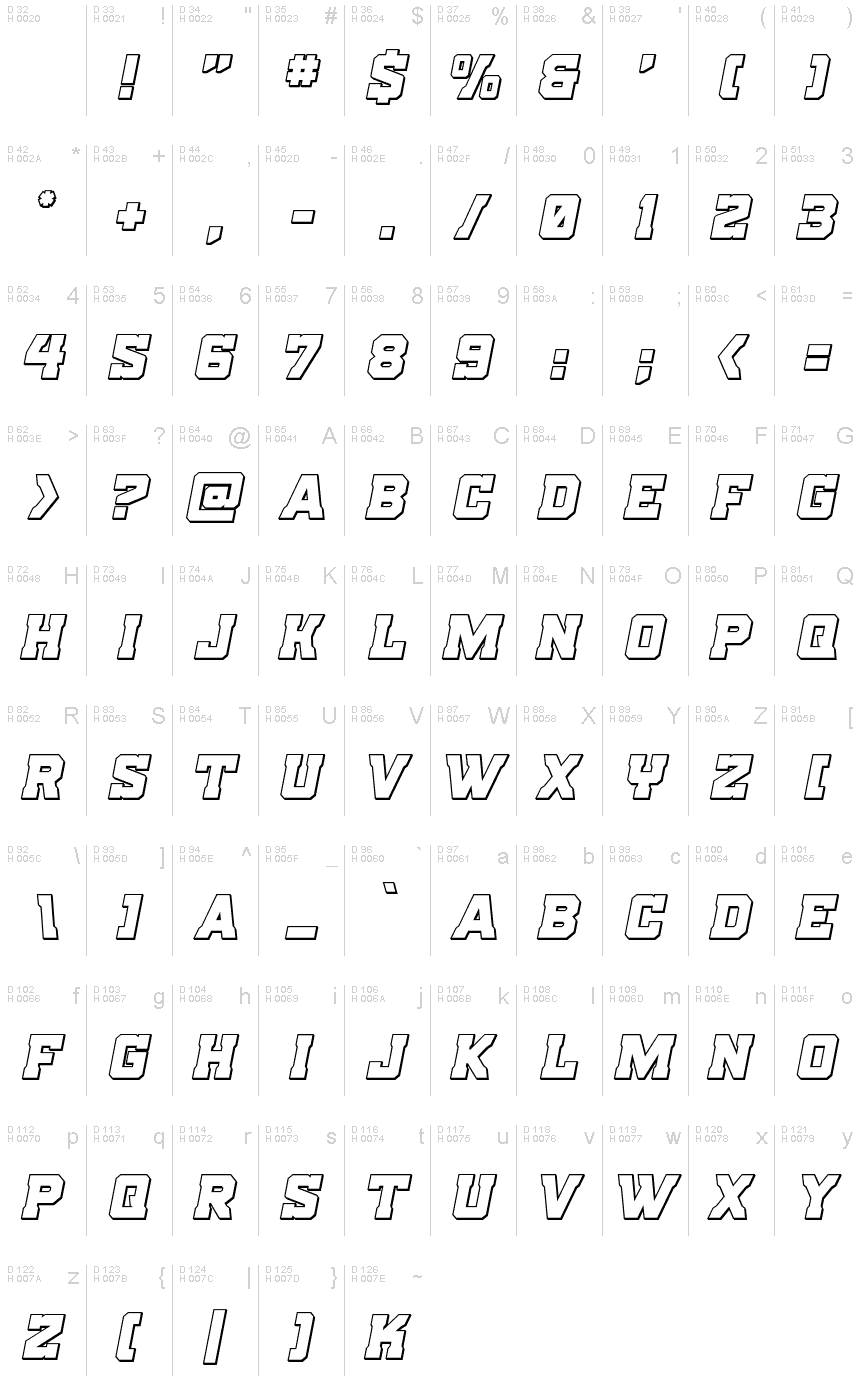
Indian Steeds 3D Italic
Indian Steeds 3D Italic is a bold old school serif font designed by Daniel Zadorozny. Perfect for eye-catching vintage designs, this display font is perfect for logo and poster designs, print publications, and packaging labels.